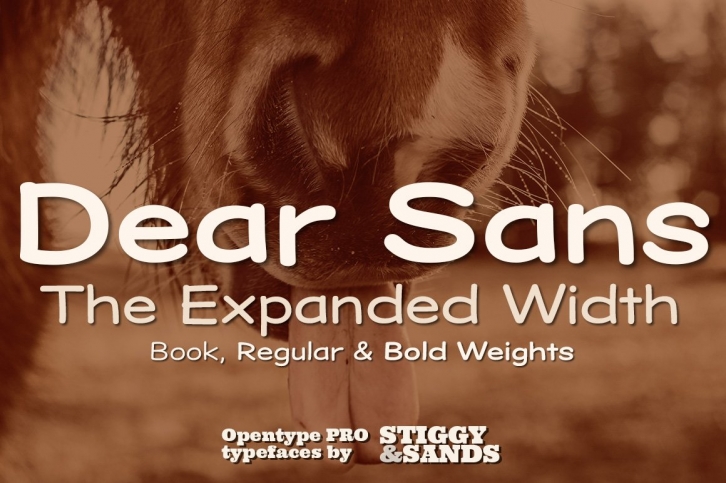
An Expanded Width Casual Handdrawn Sans
The Dear Sans Expanded Family is a three font family of condensed weights: Book, Regular & Bold. It is a display family with an expanded width. Wider is stance, but it still retains all its playfulness. Cleanly readable, with just a slight hint of silliness, Dear Sans Expanded comes through to fulfill your casual and playful design needs.
• Approx. 367 Character Glyph Set - including standard & punctuation, international language support, and basic "fi fl" ligatures per font.
• 3 Weights including: Book, Regular, and Bold.
• Loads of Personality for your designs.